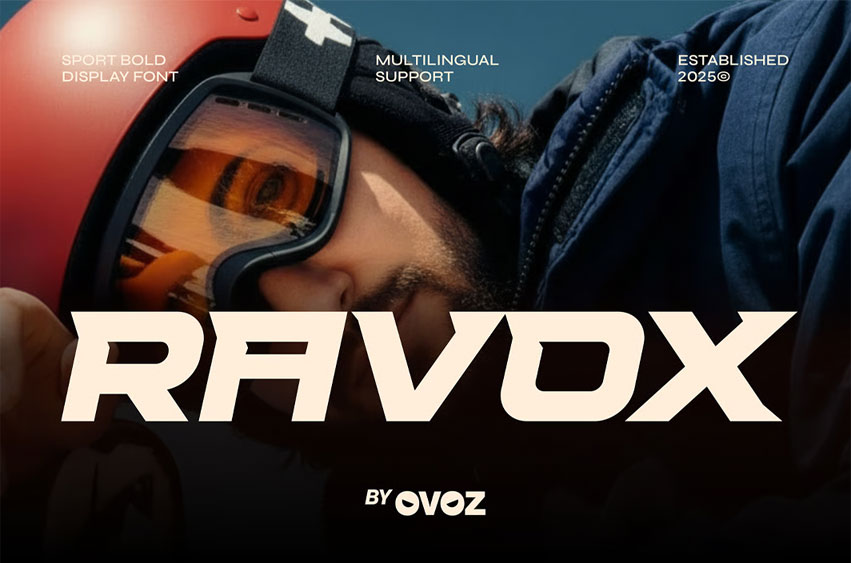
Ravox Sports Font is a sport-bold display font built for high-performance visuals and adrenaline-driven design. Its angular forms, sharp momentum, and aerodynamic flow make it ideal for sports, racing, football, basketball, baseball, soccer, and any athletic project that demands intensity and precision. Designed with a powerful stance, RAVOX delivers bold sport energy for fitness branding, gym posters, race numbers, golf tournaments, and dynamic sporty graphics that emphasize speed and strength.
With its athletic structure and modern racing attitude, RAVOX brings unstoppable motion to competitive visual concepts. This typeface is perfectly suited for sport event branding, hockey promotions, fight event posters, race identities, and high-impact athletic campaigns. Whether you’re shaping fast-paced racing visuals or building strong multi-sport branding, RAVOX ensures your message lands with authority, momentum, and confident athletic impact.
Bold Moves, Strong Letters — where dynamic sport energy meets modern precision to create a fearless competitive identity.